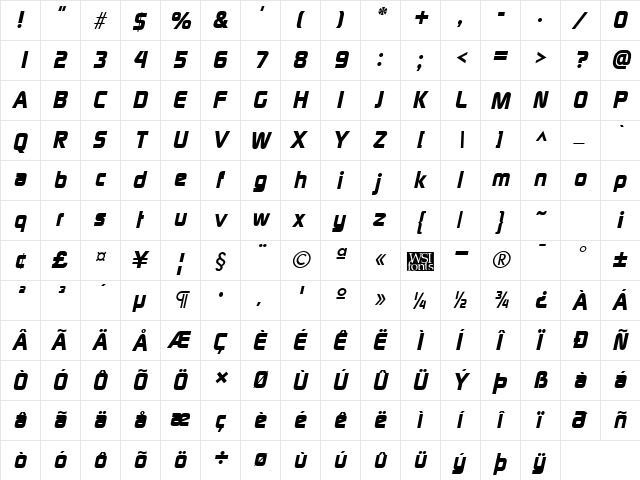
ModaerneHeavy Italic
Design Context for ModaerneHeavy Typeface
ModaerneHeavy takes a measured approach to typography — its balanced proportions and neutral character make it a reliable workhorse for both digital and print work. The dynamic lean of this cut emphasises speed and emphasis in any layout.
Pro Tip: Try ModaerneHeavy for annotation and caption copy alongside an upright companion — the contrast in angle creates a dynamic but ordered typographic system.